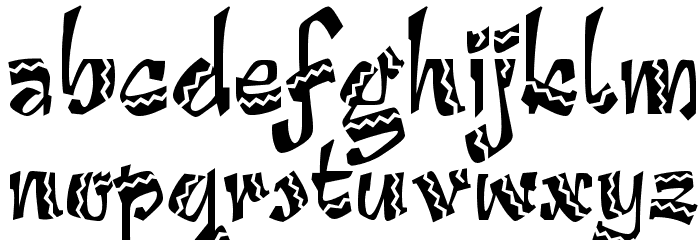
Arriba Arriba LET Plain:1.0 Font
This font features a bold and dynamic style with a playful, zigzag pattern running through each character. The uppercase letters are particularly striking, with sharp angles and a strong presence. The lowercase letters maintain the same energetic design, providing a cohesive look across the alphabet. Numbers and special characters are equally bold, ensuring consistency throughout. The font's unique design makes it ideal for projects that require a fun and eye-catching typeface.
A bold, playful font with zigzag patterns and strong character presence.
- Proposed Projects: Ideal for posters, event flyers, children's book covers, and any design needing a lively and distinctive typeface.
- Overall Style: Decorative